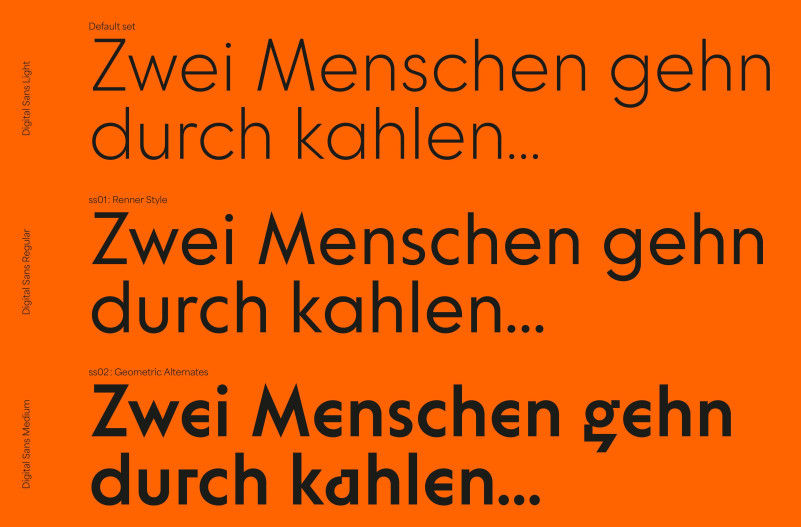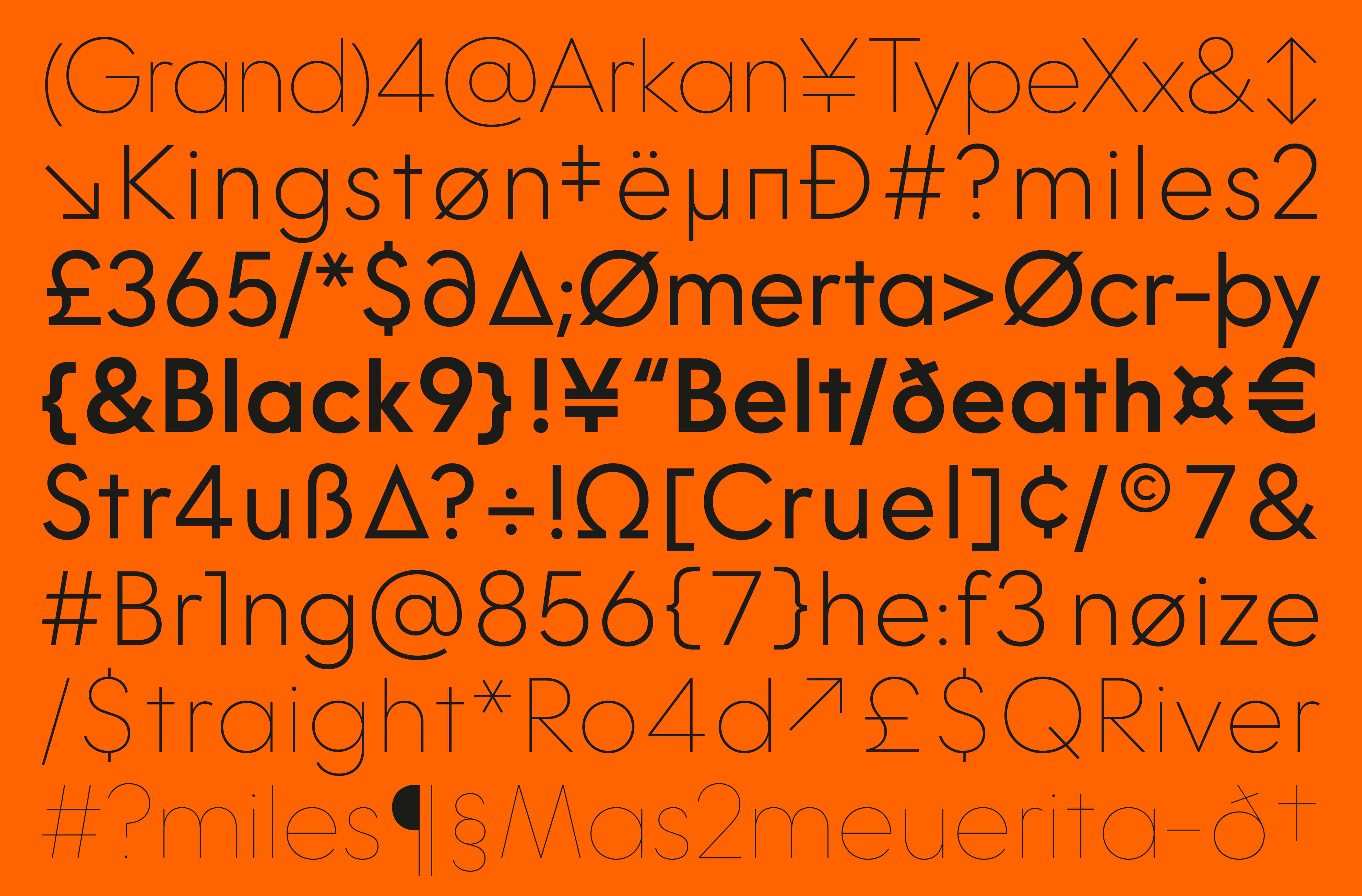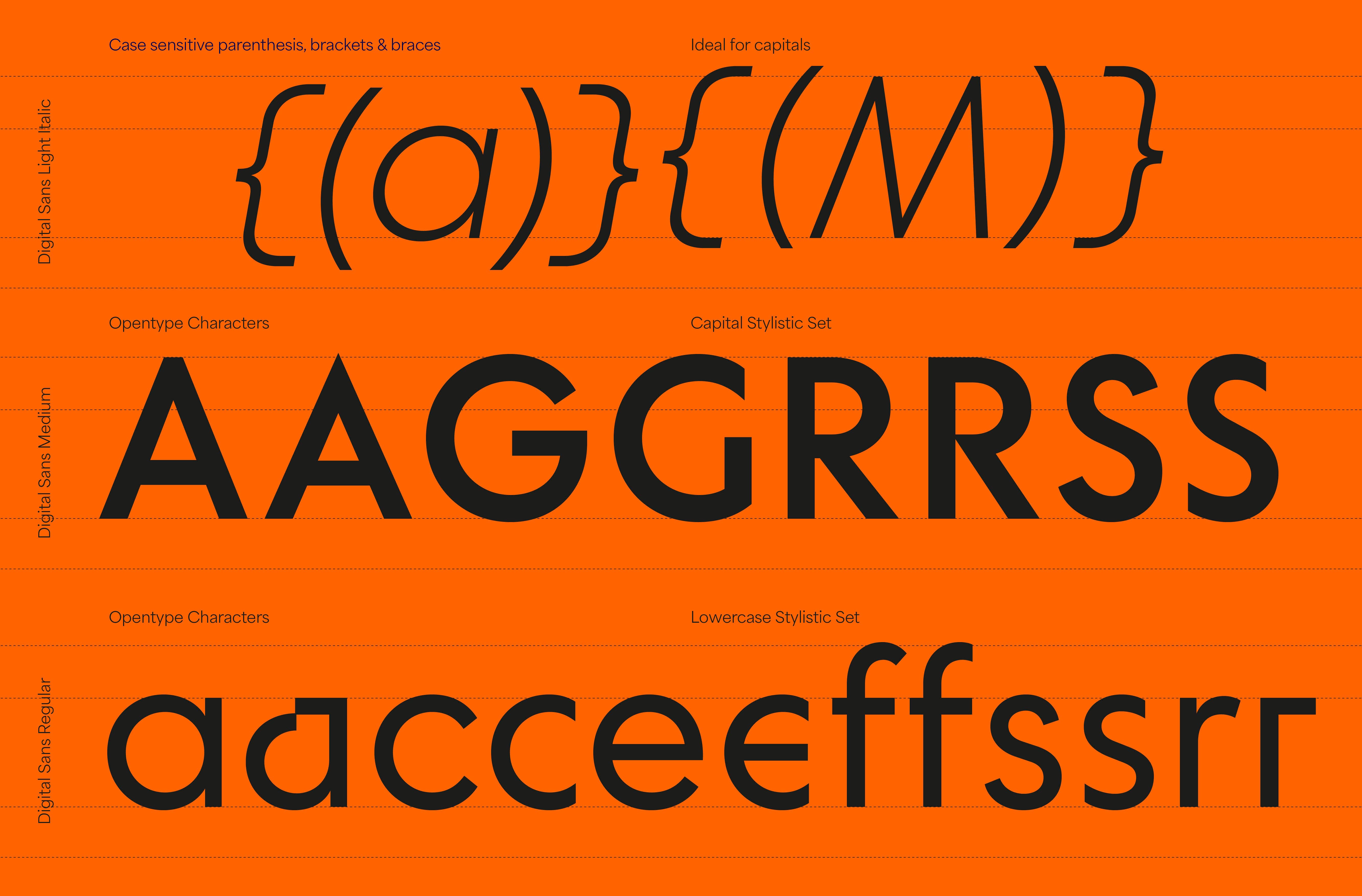
Digital Sans Font . Digital sans ef medium is the perfect font for all your fun designs. Made in the 1970s for the unitype phototypesetting system, digital sans is an adaptation of marty goldstein’s sol. Digital sans font is a modern geometric font family from tim vanhille inspired by the visionary work of paul renner, futura. This font family comes with 7 different weights and. The font family is digital sans ef. Download digital sans ef medium font free! Click the download button to download the. This flexible font family comes with 7 different weights and. We have 7 free digital, sans fonts to offer for direct downloading · 1001 fonts is your favorite site for free fonts since 2001 Download—the font meta search engine with more than 50,000 font styles to find and order. Digital sans is a timeless geometric sans inspired by the visionary work of paul renner, futura. Digital sans is a timeless geometric sans inspired by the visionary work of paul renner, futura. The font subfamily is medium. This flexible font family comes with 7 different.
Digital sans is a timeless geometric sans inspired by the visionary work of paul renner, futura. Click the download button to download the. We have 7 free digital, sans fonts to offer for direct downloading · 1001 fonts is your favorite site for free fonts since 2001 This flexible font family comes with 7 different. This font family comes with 7 different weights and. Digital sans is a timeless geometric sans inspired by the visionary work of paul renner, futura. Digital sans ef medium is the perfect font for all your fun designs. The font family is digital sans ef. Digital sans font is a modern geometric font family from tim vanhille inspired by the visionary work of paul renner, futura. The font subfamily is medium.
Digital Sans Font Made in the 1970s for the unitype phototypesetting system, digital sans is an adaptation of marty goldstein’s sol. Digital sans ef medium is the perfect font for all your fun designs. Made in the 1970s for the unitype phototypesetting system, digital sans is an adaptation of marty goldstein’s sol. Digital sans is a timeless geometric sans inspired by the visionary work of paul renner, futura. The font family is digital sans ef. The font subfamily is medium. This font family comes with 7 different weights and. This flexible font family comes with 7 different weights and. This flexible font family comes with 7 different. We have 7 free digital, sans fonts to offer for direct downloading · 1001 fonts is your favorite site for free fonts since 2001 Digital sans is a timeless geometric sans inspired by the visionary work of paul renner, futura. Download digital sans ef medium font free! Digital sans font is a modern geometric font family from tim vanhille inspired by the visionary work of paul renner, futura. Download—the font meta search engine with more than 50,000 font styles to find and order. Click the download button to download the.
The Unique Sans Serif Font Bundle in 2024 Font bundles, Graphic Digital Sans Font Download—the font meta search engine with more than 50,000 font styles to find and order. Click the download button to download the. This font family comes with 7 different weights and. The font subfamily is medium. Digital sans ef medium is the perfect font for all your fun designs. Digital sans is a timeless geometric sans inspired by the visionary. Digital Sans Font.
20 Best free Canva sansserif fonts in 2021 Serif fonts, Sans serif Digital Sans Font Digital sans font is a modern geometric font family from tim vanhille inspired by the visionary work of paul renner, futura. Click the download button to download the. The font subfamily is medium. Digital sans ef medium is the perfect font for all your fun designs. The font family is digital sans ef. Download digital sans ef medium font free!. Digital Sans Font.
Toony Sans Fonts Shmonts Digital Sans Font The font subfamily is medium. Digital sans is a timeless geometric sans inspired by the visionary work of paul renner, futura. This flexible font family comes with 7 different. We have 7 free digital, sans fonts to offer for direct downloading · 1001 fonts is your favorite site for free fonts since 2001 Download digital sans ef medium font free!. Digital Sans Font.